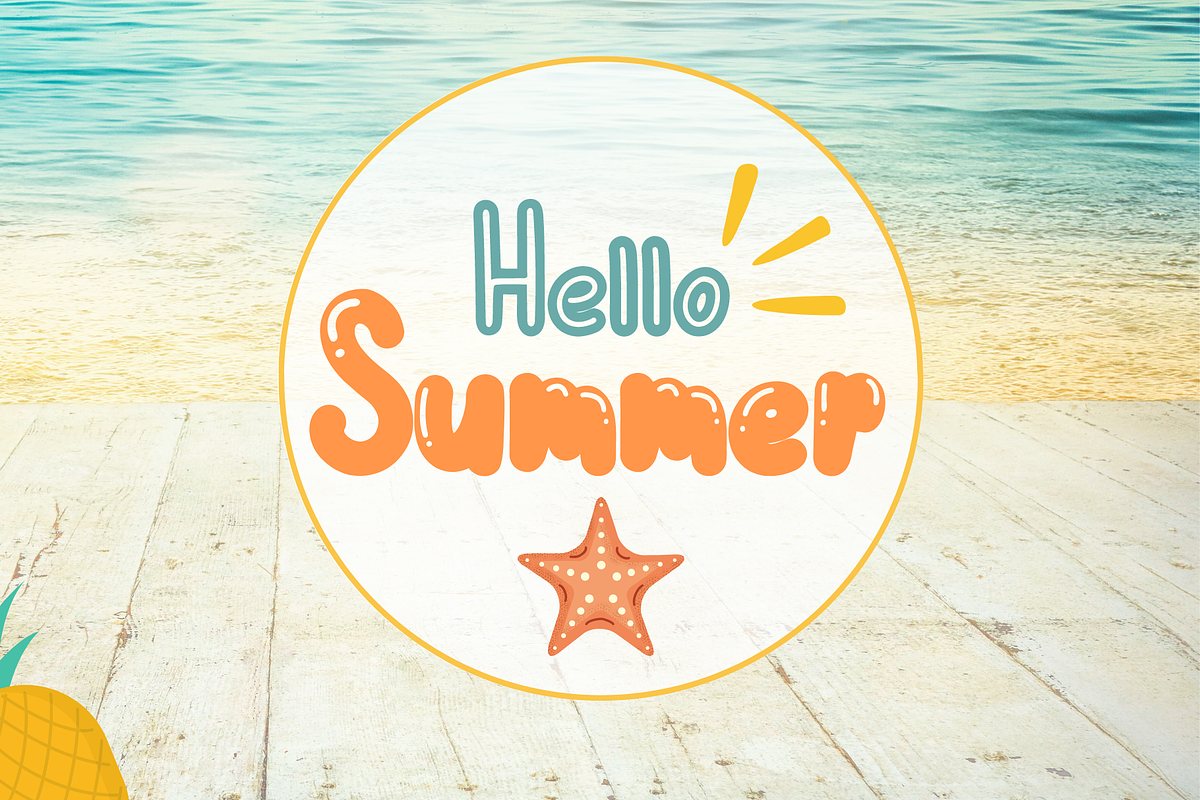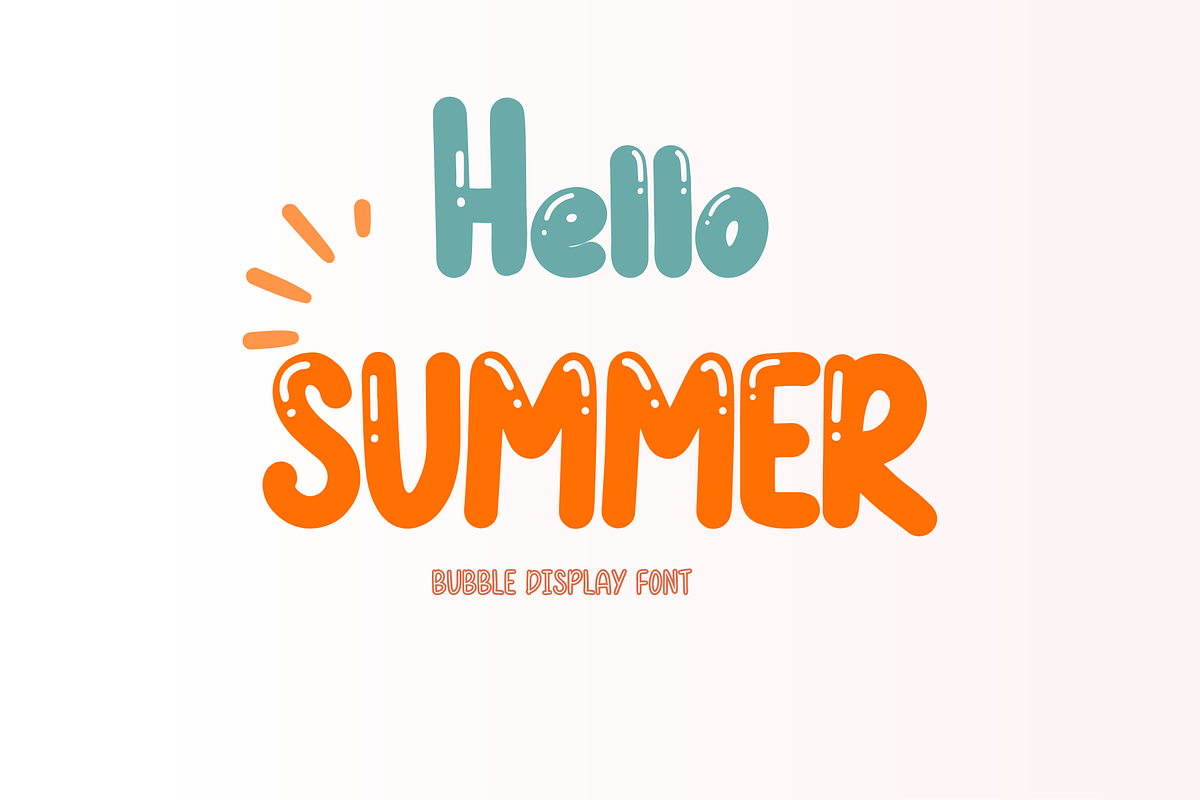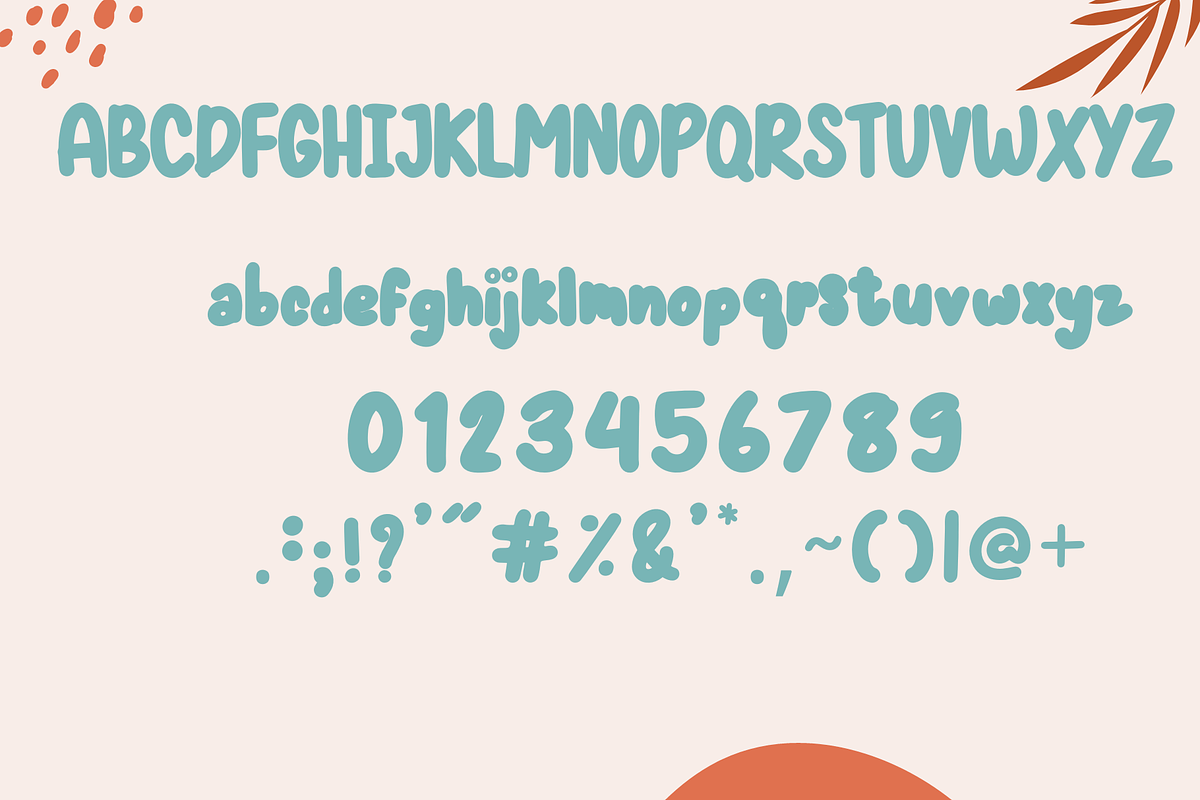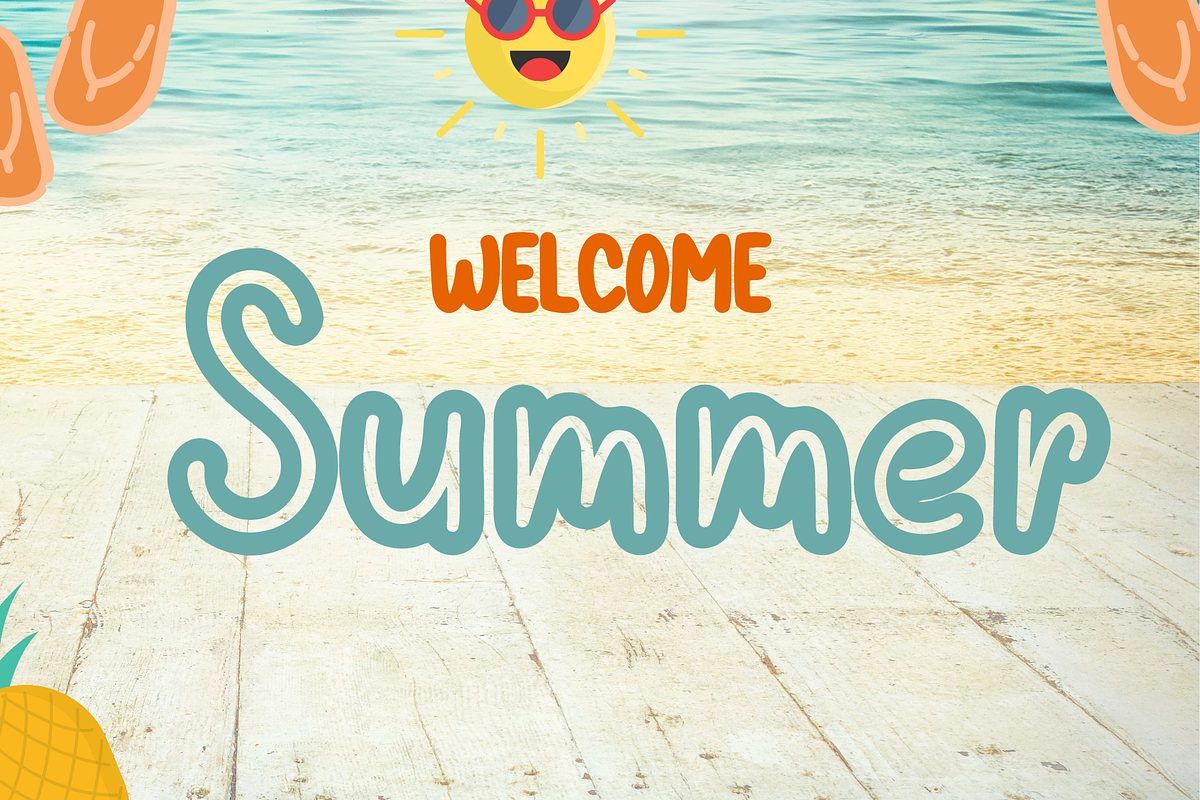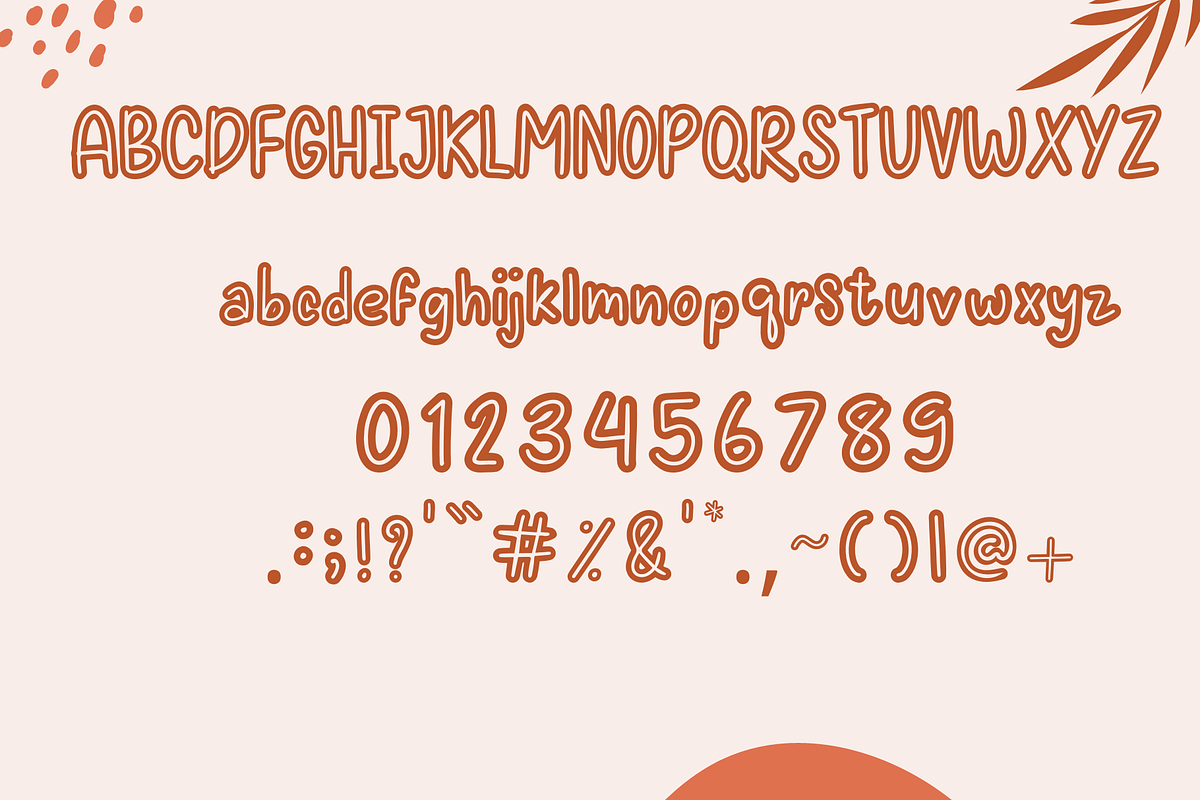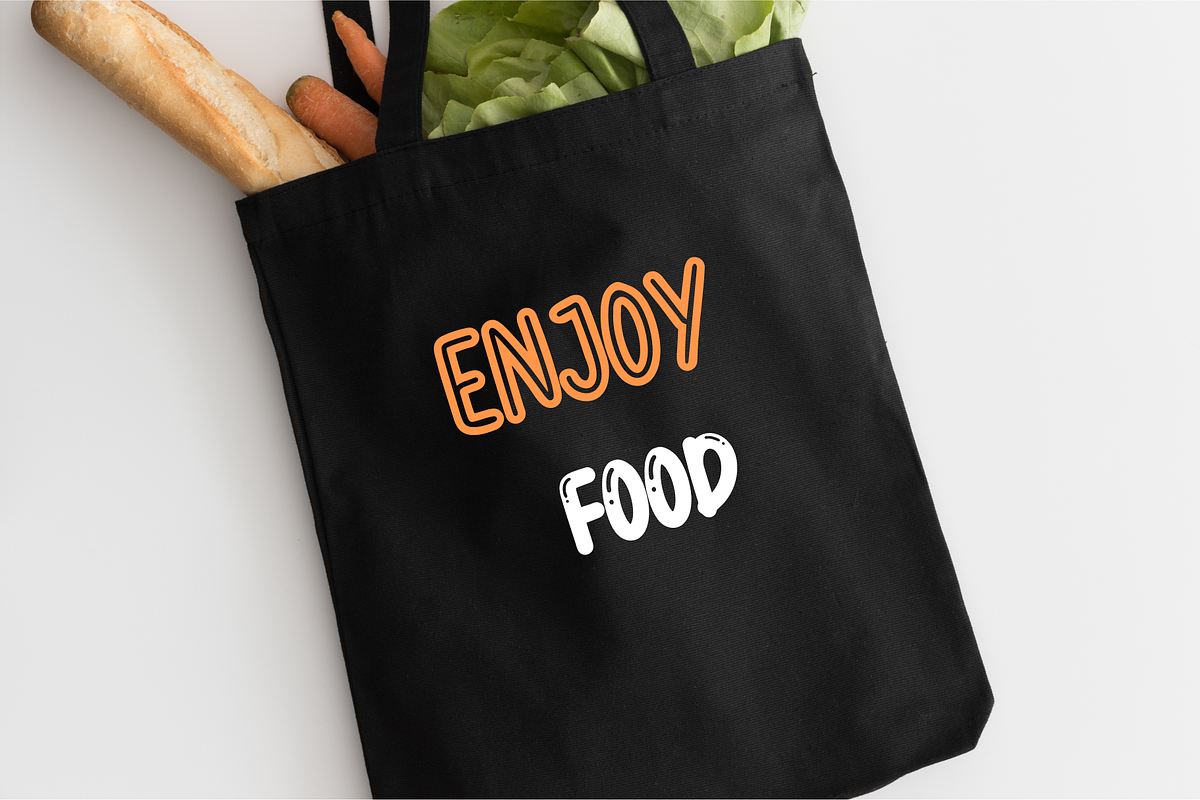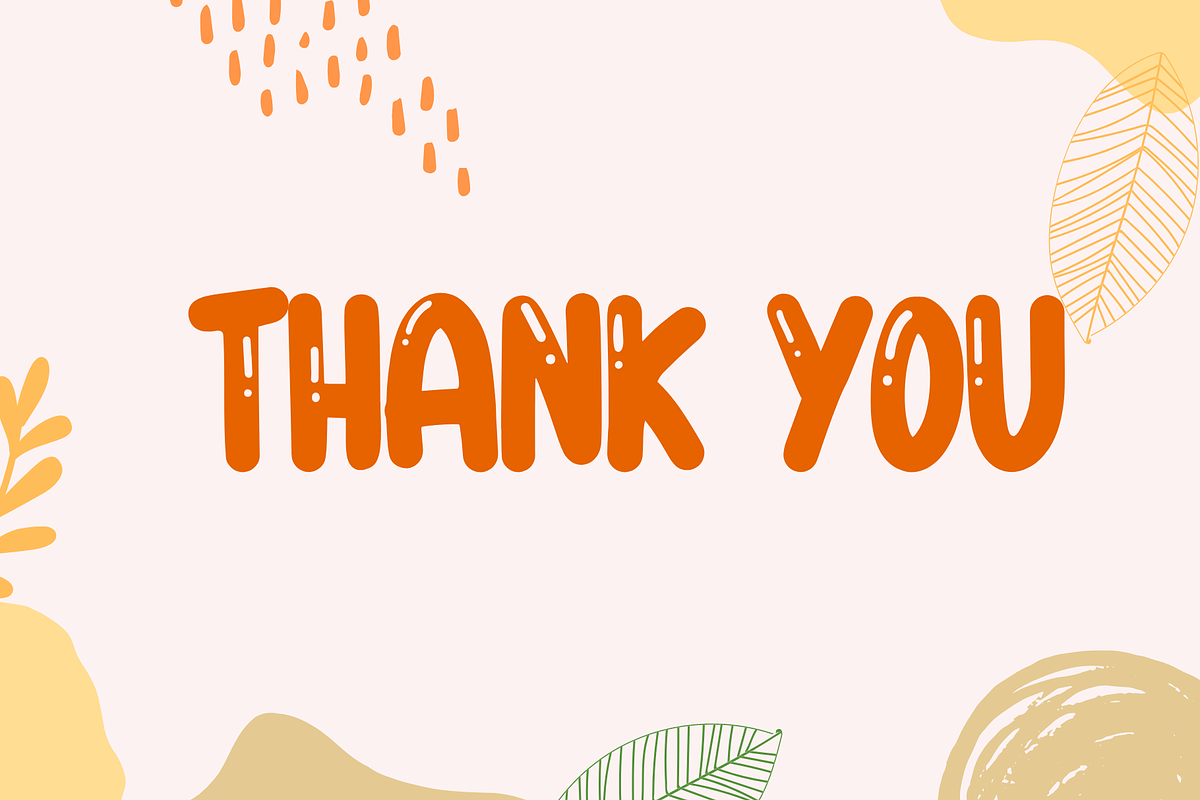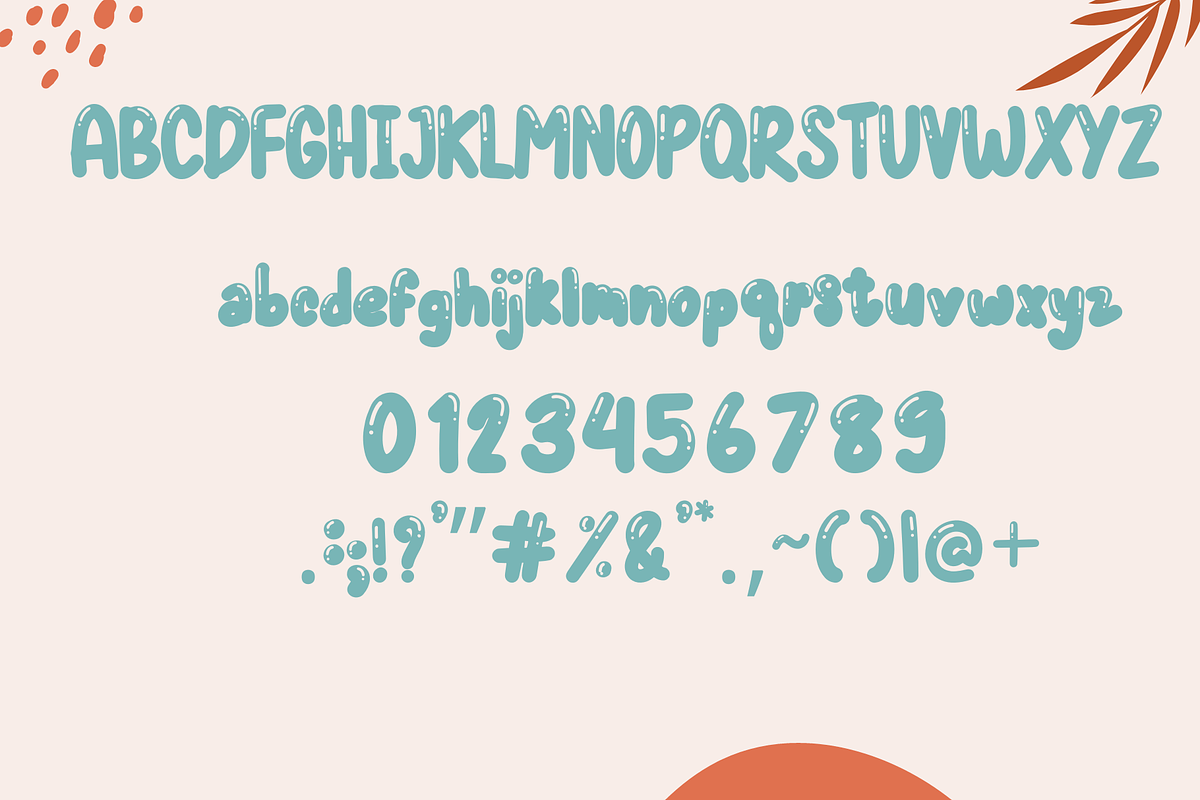
Hello Summer
Hello Summer a cute and friendly handwritten font. Hello Summer is a trendy handwritten font with a contemporary atmosphere and impeccable form, inspired by timeless classic calligraphy. It will add elegance and class to any of your design projects. This font can be used to write various kinds of products according to the aspect of each need, projects, logos, wedding designs, social media posts, advertisements, product packaging, product designs, label, photography, watermark, invitation, stationery, and any other projects. and much more!